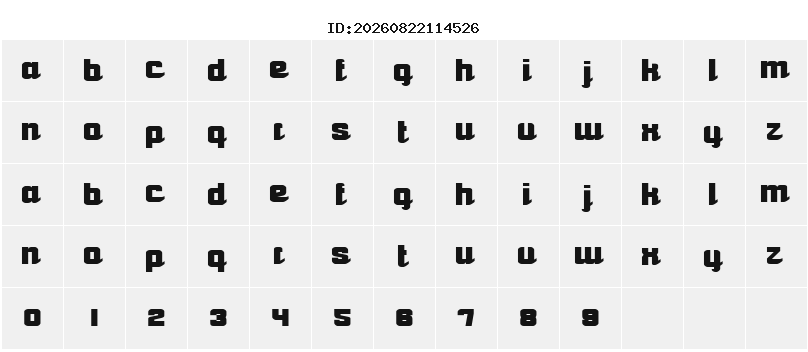
Scripto Preview
• Font Name: Scripto
• Full Font Name: Scripto
• PostScript Name: Scripto
About Scripto.ttf
Scripto.ttf is a modern, elegant sans-serif font designed for ultimate readability and visual harmony. Perfect for branding, headlines, web design, and print materials.